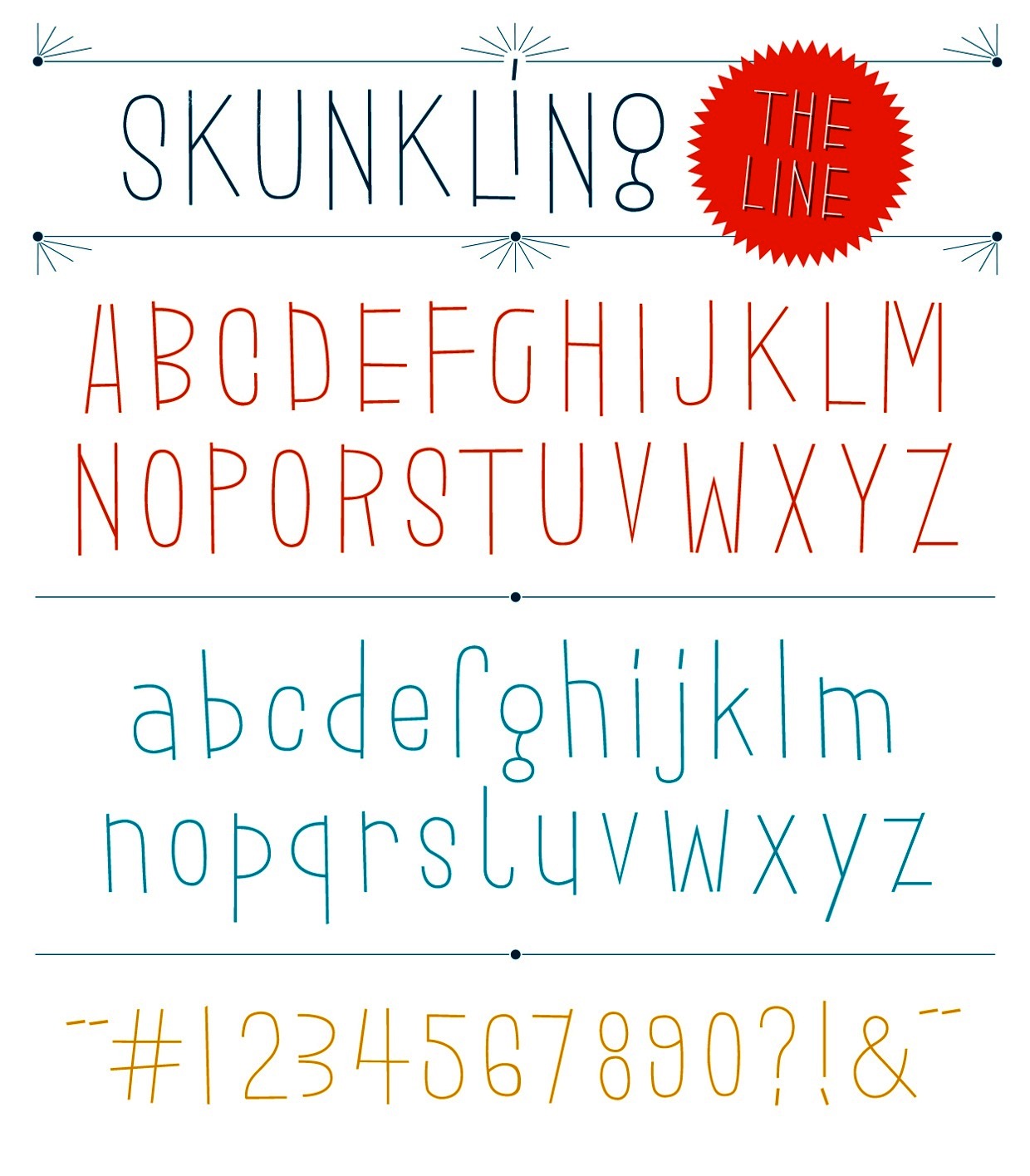
Jason Mark Jones
Designer and illustrator in Long Beach, CA, b. 1984, Santa Rosa, CA, whose foundry is simply called Jason Mark Jones. He created Skunkling (2011) in Inline and Theline versions. These fit together perfectly for possible two-colour designs. In 2012, he designed the beveled typeface Sullivan (Lost Type). Check also the Marquis version of Sullivan made in 2013 by Adam Bowlin.